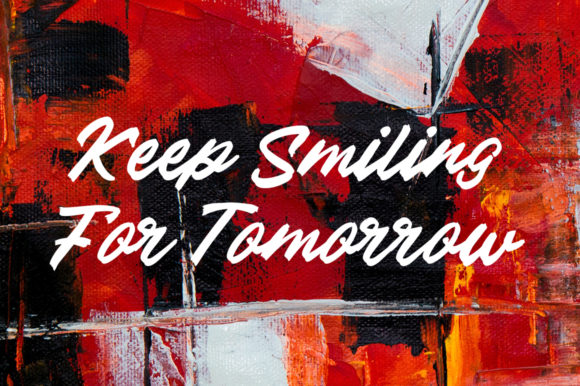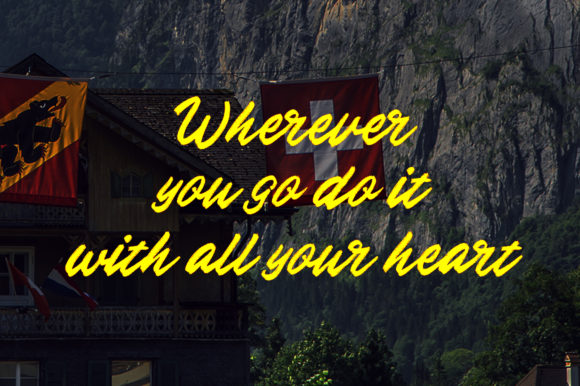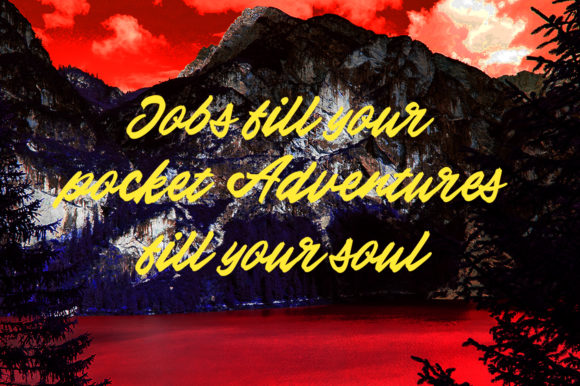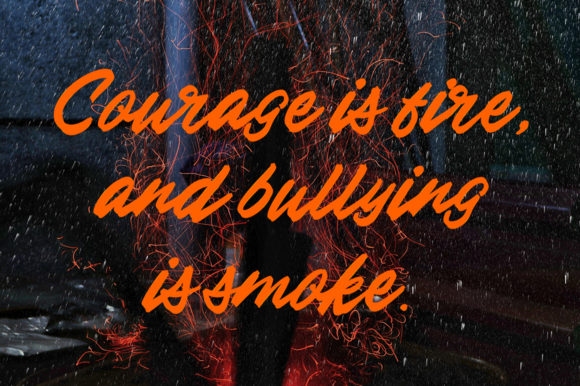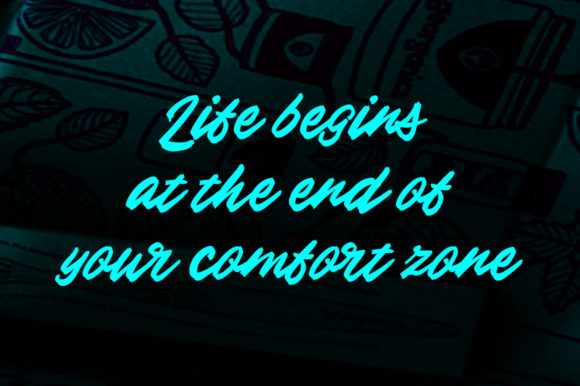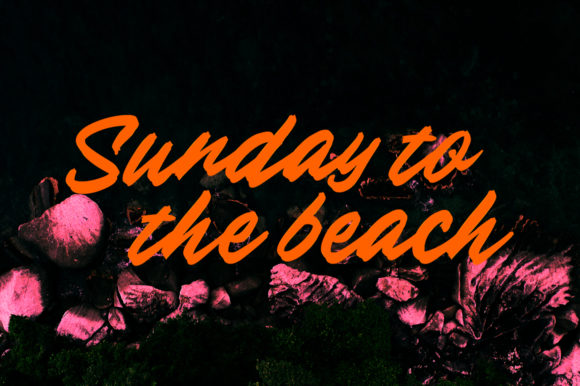
Babylonia Font: The Ultimate Guide to This Cute and Casual Handwritten Font
Are you a designer or crafter looking for a font that can add a touch of personality to your projects? Look no further than Babylonia Font! This adorable and casual handwritten font is perfect for a wide range of designs, from creative crafts to digital projects. In this article, we’ll dive into the world of Babylonia Font and explore its features, uses, and benefits.
What is Babylonia Font?
Babylonia Font is a beautiful, handwritten font that boasts a natural and unique style. Its casual and cute appearance makes it incredibly fitting for a large pool of designs, from fun and playful to elegant and sophisticated. The font’s versatility is limitless, and the only limit is your imagination!
Features of Babylonia Font
Babylonia Font has several features that make it a standout font for designers and crafters. Some of its notable features include:
- Handwritten style: Babylonia Font has a genuine handwritten look that adds a personal touch to any design.
- Natural and unique: The font’s natural and unique style makes it perfect for designs that require a distinctive look.
- Cute and casual: Babylonia Font is incredibly cute and casual, making it suitable for a wide range of projects, from kids’ designs to adult-oriented content.
- Highly versatile: The font’s versatility is limitless, and it can be used for various designs, including crafts, digital projects, and more.
Uses of Babylonia Font
Babylonia Font is an incredibly versatile font that can be used for a wide range of projects, including:
- Crafts: Use Babylonia Font to create personalized crafts, such as handmade cards, gift tags, and more.
- Digital projects: The font is perfect for digital projects, including social media graphics, blog posts, and website designs.
- Signs and posters: Babylonia Font can be used to create eye-catching signs and posters for events, promotions, and more.
- Stationery and invitations: The font is ideal for designing beautiful stationery, invitations, and greeting cards.
Benefits of Using Babylonia Font
There are several benefits to using Babylonia Font in your designs, including:
- Easy to read: The font is highly legible, making it easy to read and understand.
- Adds personality: Babylonia Font adds a touch of personality to any design, making it perfect for projects that require a personal touch.
- Versatile: The font’s versatility is limitless, and it can be used for various designs and projects.
- Unique: Babylonia Font has a unique style that sets it apart from other fonts, making it perfect for designers who want to create distinctive designs.
Tips for Using Babylonia Font
Here are some tips for using Babylonia Font in your designs:
- Pair with other fonts: Experiment with pairing Babylonia Font with other fonts to create unique and interesting combinations.
- Use for headings and titles: The font is perfect for headings and titles, adding a touch of personality to your designs.
- Experiment with colors: Babylonia Font looks great in a variety of colors, so don’t be afraid to experiment and find the perfect color scheme for your design.
In conclusion, Babylonia Font is a beautiful, handwritten font that is perfect for designers and crafters looking to add a touch of personality to their projects. Its natural and unique style, combined with its versatility and ease of use, make it an excellent choice for a wide range of designs. Whether you’re creating crafts, digital projects, or signs and posters, Babylonia Font is sure to impress. So why not give it a try and see what amazing designs you can create?